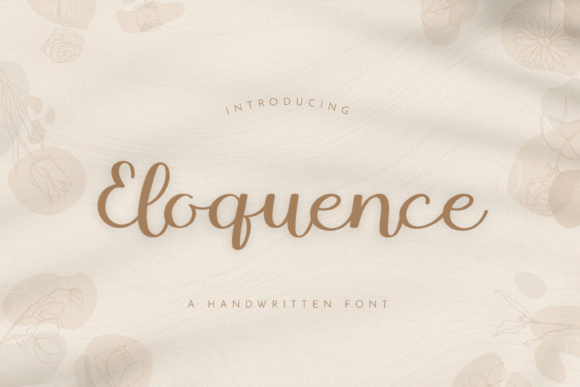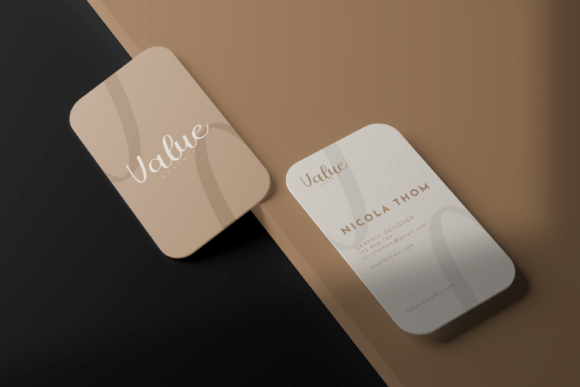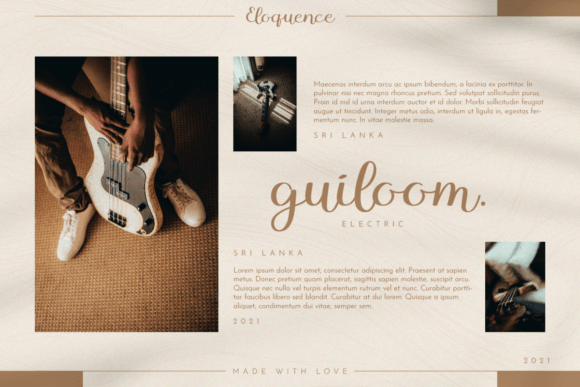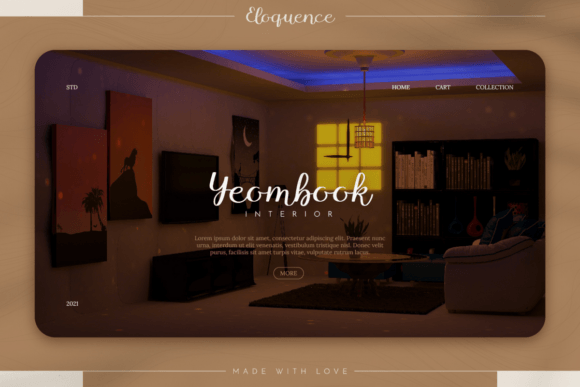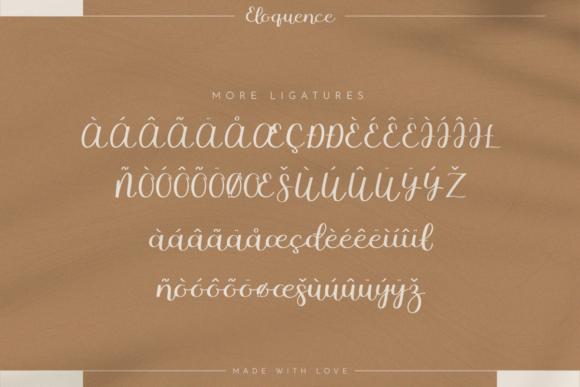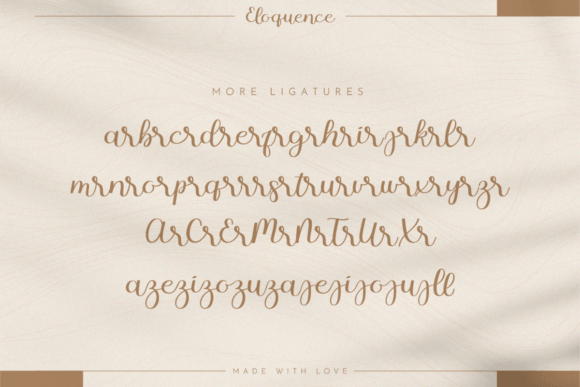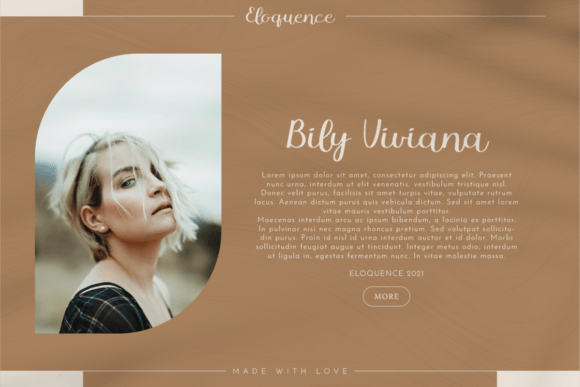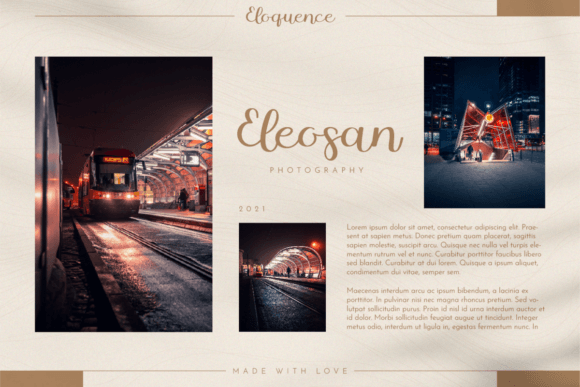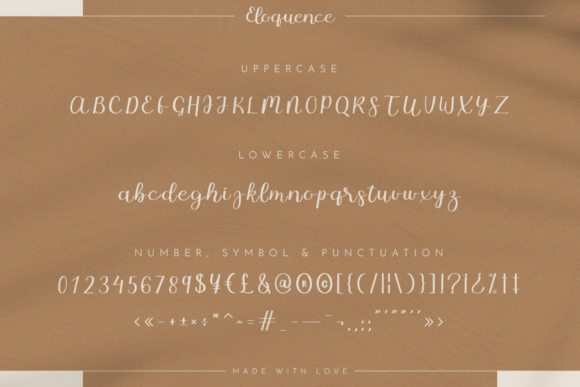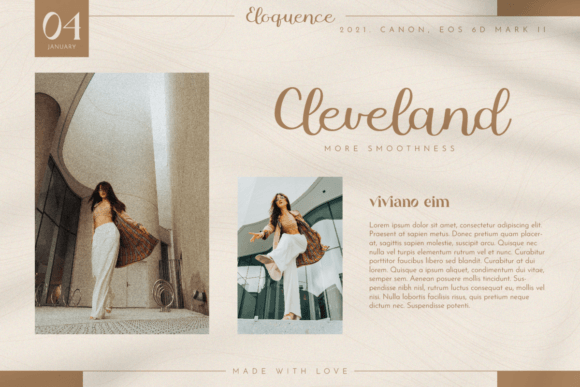
Introducing “Eloquence,” a fresh and handwritten script font designed in 2022. With its slightly messy yet detailed appearance, Eloquence stands out as one of the best script fonts, offering a unique handwritten taste. This font is well-suited for a variety of design projects, including cards, wedding materials, lettering, mastheads, books, branding, logos, posters, and more.
The distinctive qualities of “Eloquence” add a touch of character to your designs, making them eye-catching, irresistible, and elegant. Whether you’re working on a wedding invitation, a branding project, or any other creative endeavor, this script font is designed to enhance the visual appeal of your work.
The messy and detailed nature of Eloquence contributes to its authenticity, giving your text a genuine and handcrafted feel. This makes it a perfect choice for projects where you want to convey a sense of personalization and warmth.
In summary, “Eloquence” is not just a font; it’s a creative tool designed to bring a fresh and handwritten aesthetic to your designs. Download “Eloquence” now and explore how it can elevate your cards, wedding projects, branding, and various other design projects. With its unique characteristics, “Eloquence” is ready to make your designs stand out with an irresistible and elegant charm.